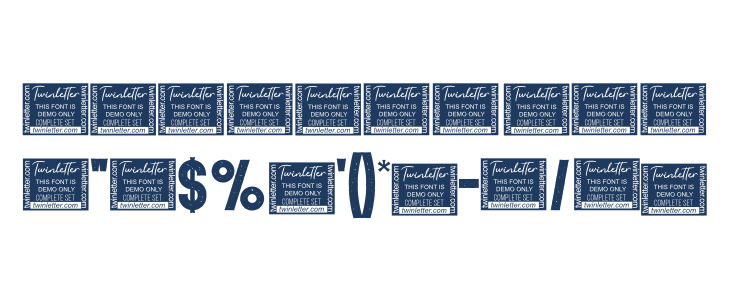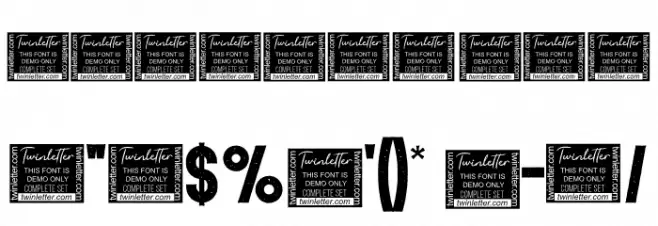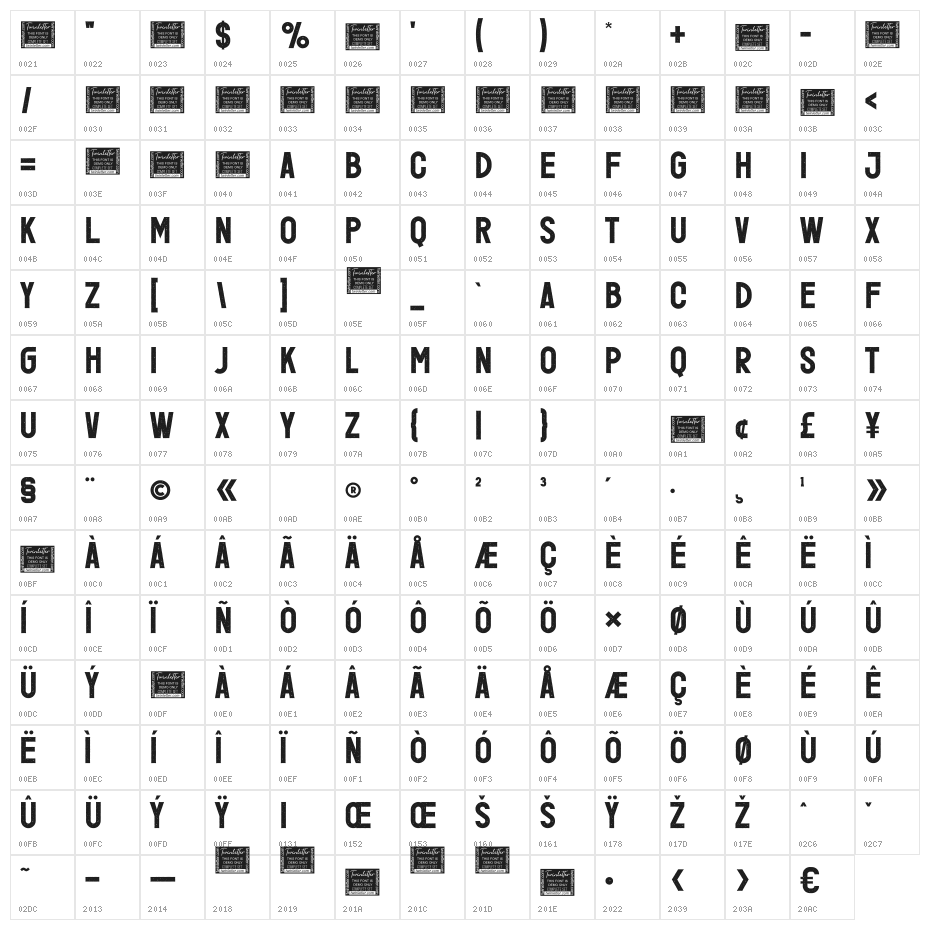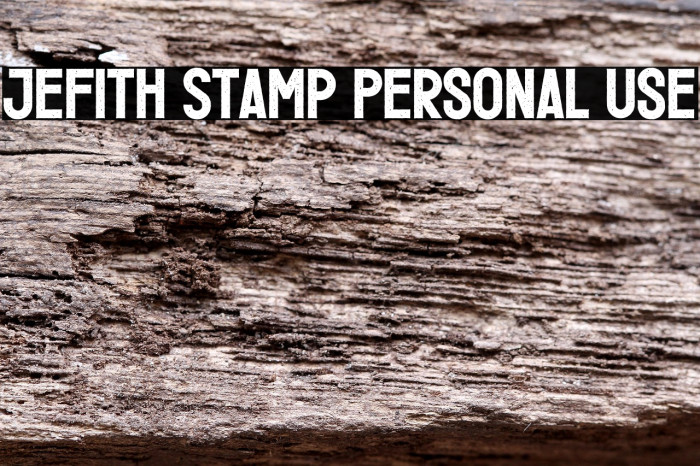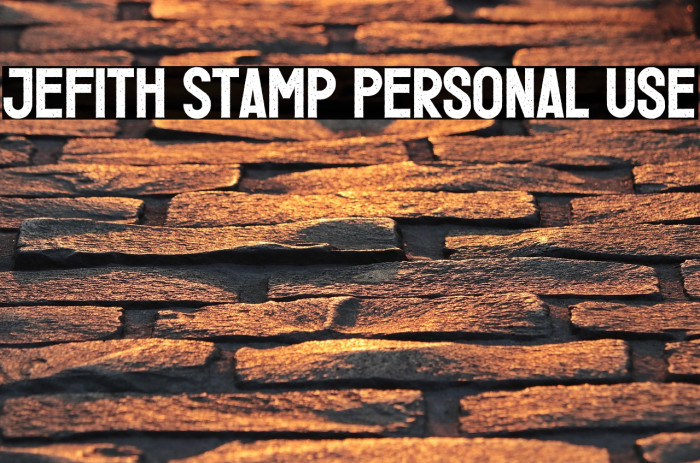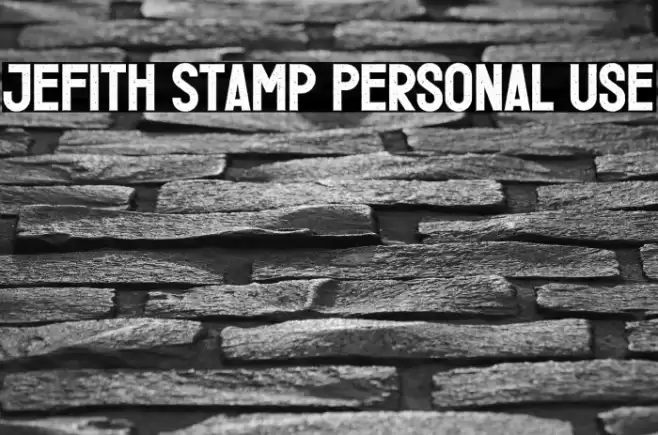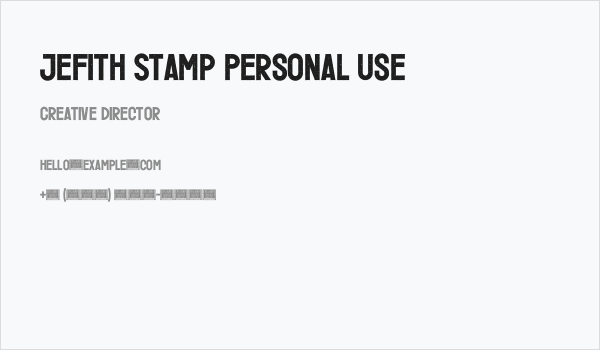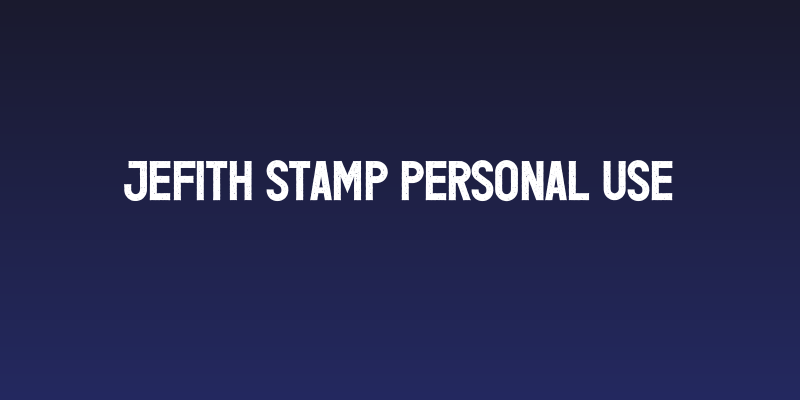
Jefith Stamp Personal Use Font
Jefith Stamp Personal Use Description
This font features a bold, distressed style with a textured, stamp-like appearance. The uppercase letters are prominent and uniform, conveying a sense of strength and impact. The characters have a slightly rough, weathered look, adding a vintage or industrial feel. The spacing between characters is consistent, allowing for clear readability despite the decorative texture. This font is ideal for projects that require a rugged, authentic aesthetic, such as branding for outdoor products, vintage-themed designs, or bold headlines.
| Overall Style | Vintage |
| Proposed Projects | Ideal for vintage-themed designs, outdoor product branding, and bold headlines. |